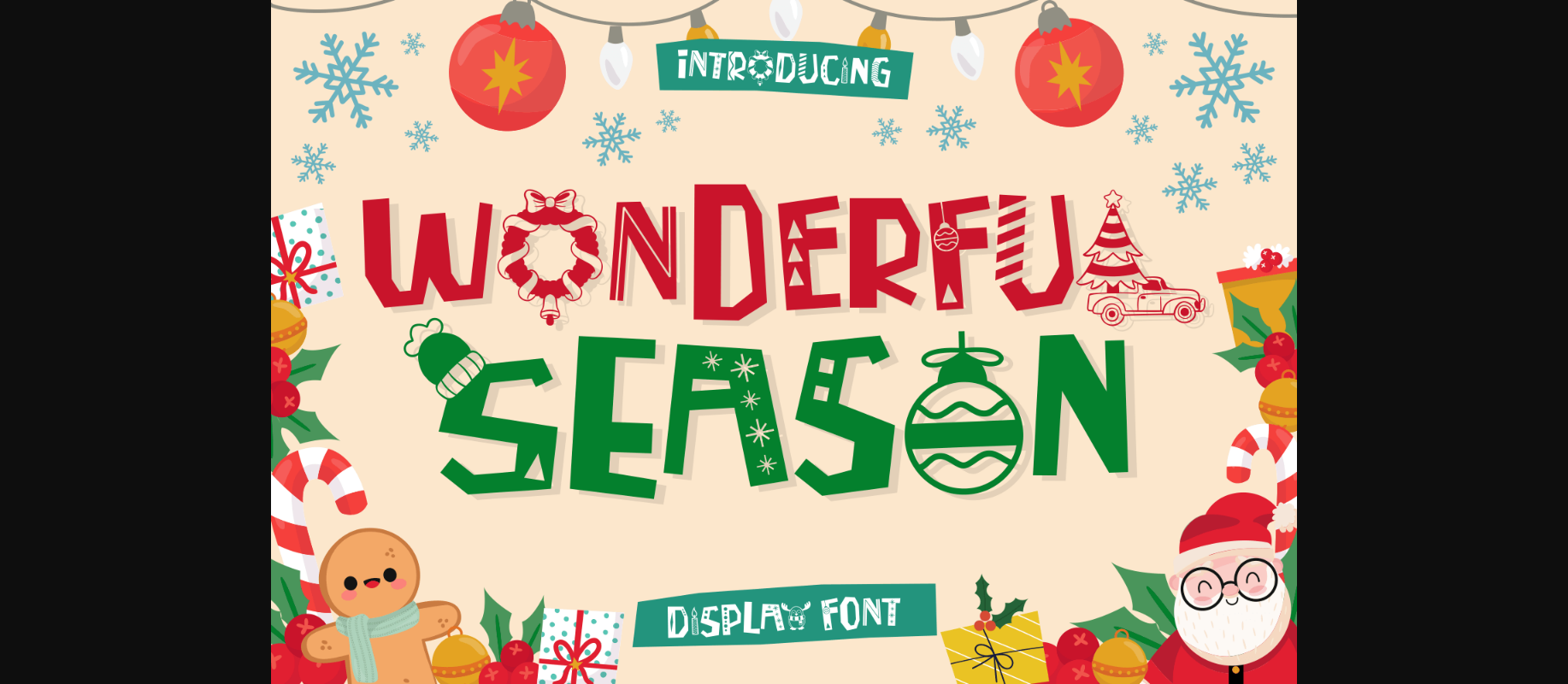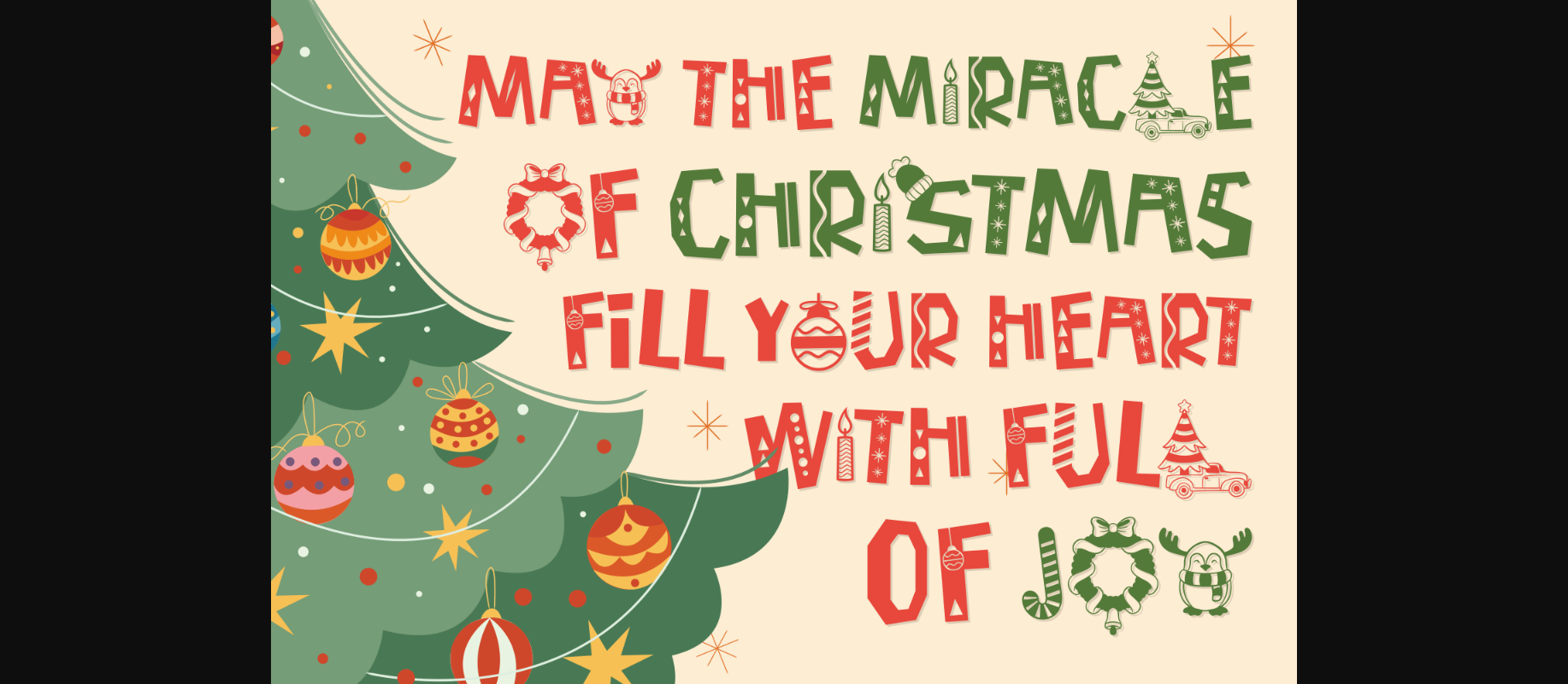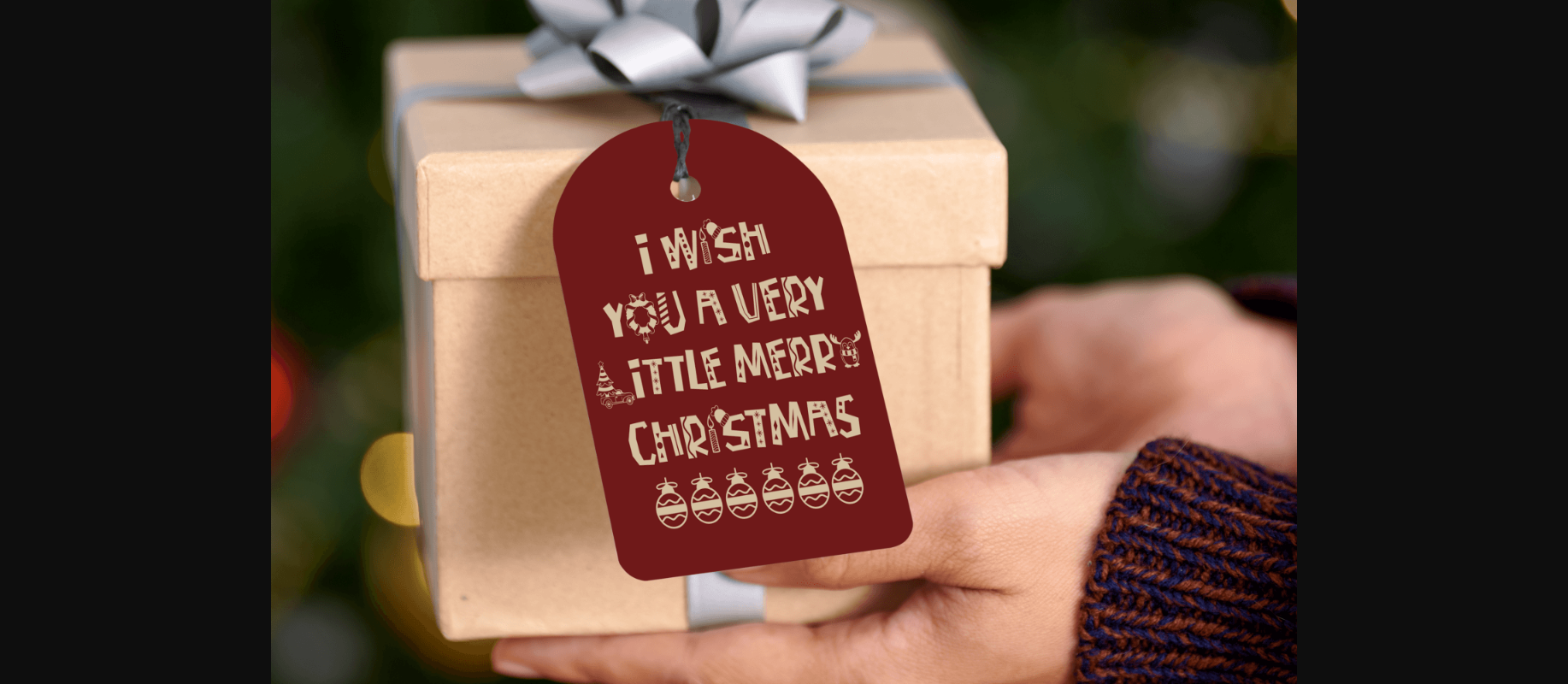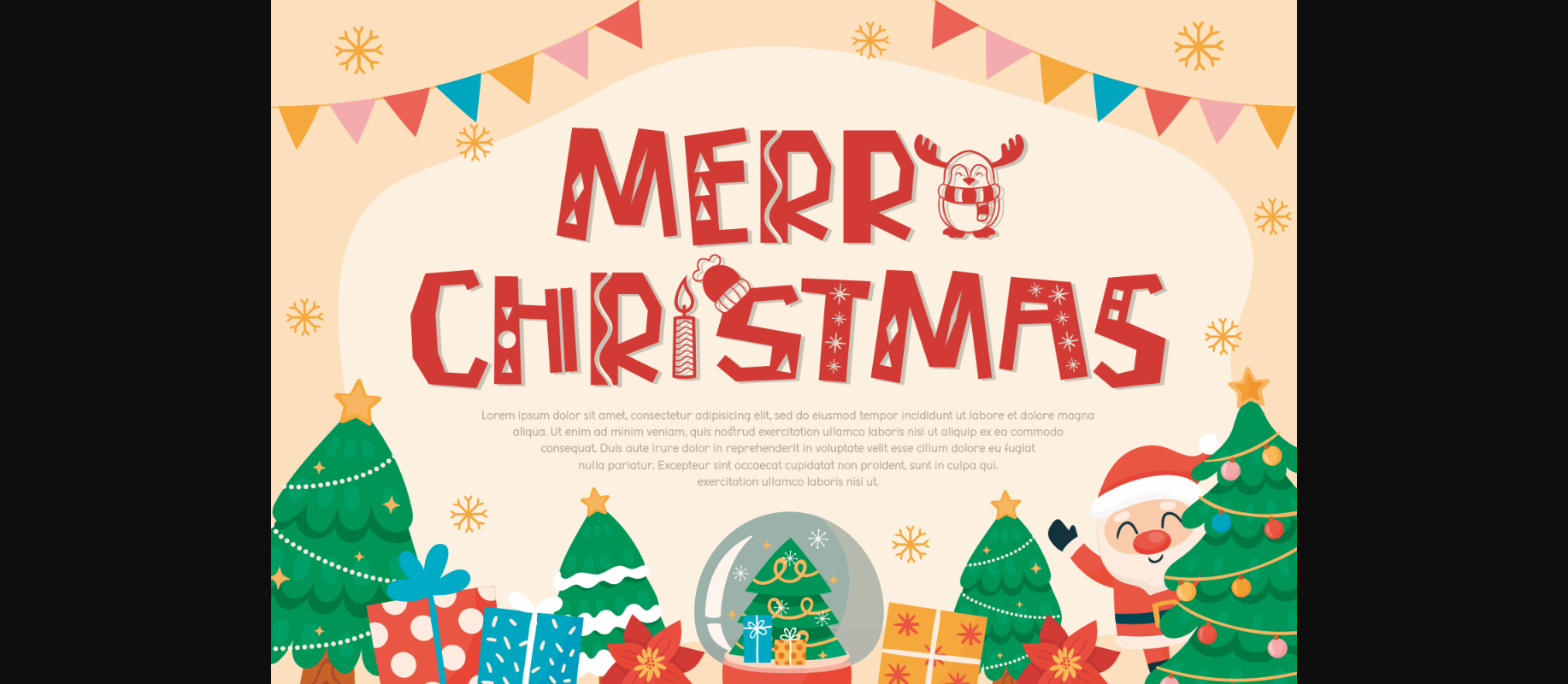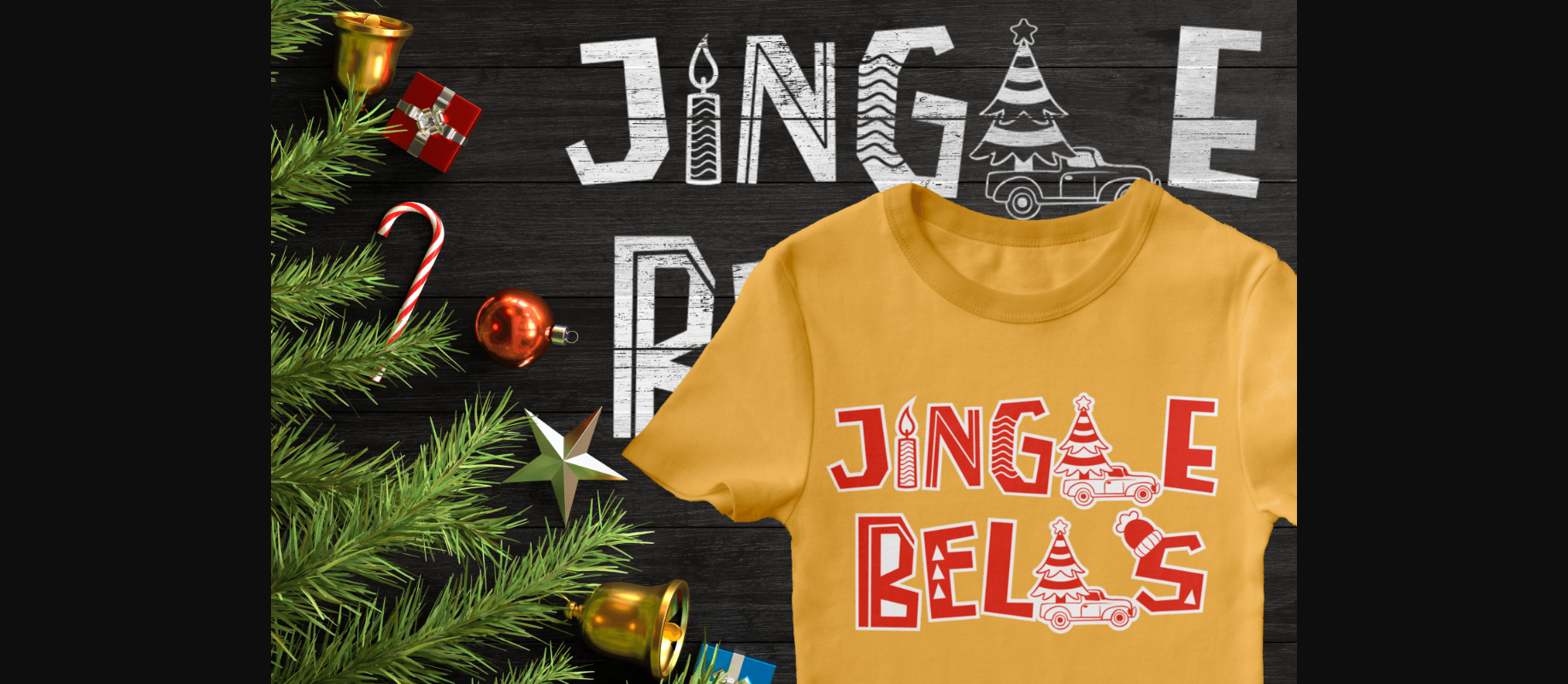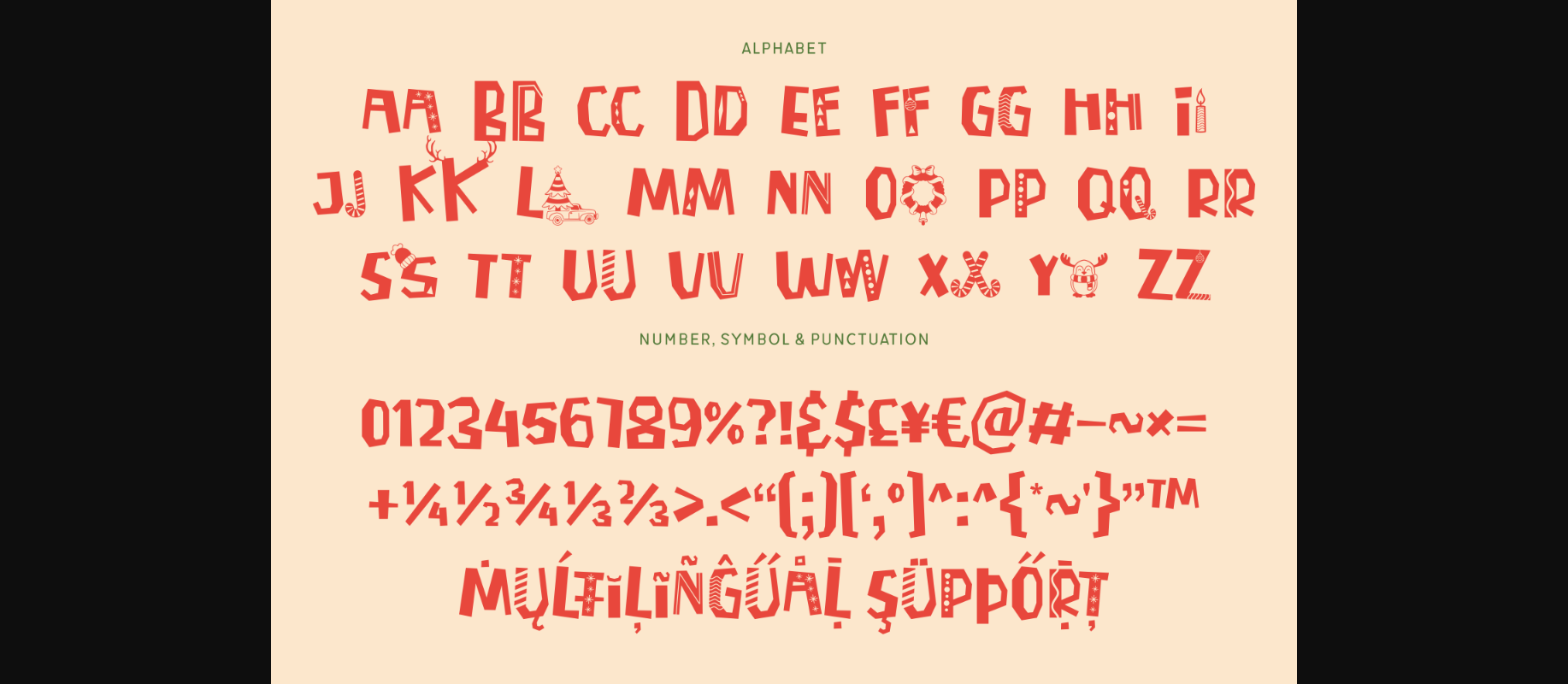
Wonderful Season Font
About Wonderful Season Font
Wonderful Season is a cute and festive decorative font. It embodies playfulness and authenticity and is the perfect choice for all your favorite projects, or even for blog posts, logos, Christmas cards, invitations, photo albums, decorations, and much more. Add it to any of your designs, and enjoy the results!